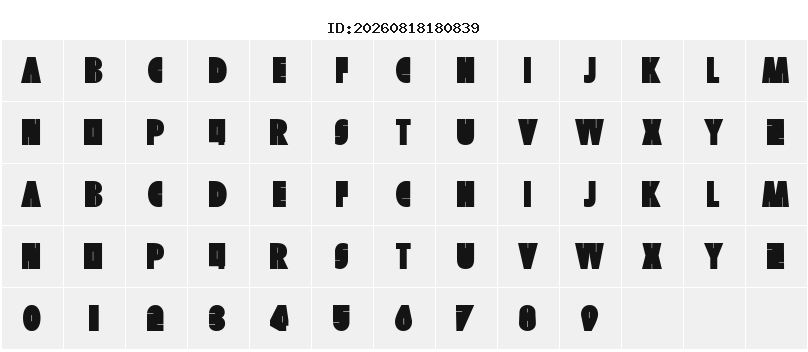
• Font Name: Skuer
• Designer: Valdet Hajdari
• Description: Skuer is a free typeface created in October 2012 and based on a "urban" style. The typeface contains all main characters (from A to Z - capitals & lowercases are the same ) and numbers (from 0 to 9). The following pictures show you how are the height and the width of the typeface and some examples on how it could be included on a logo, photo or anything else.
Skuer.ttf is a modern, elegant sans-serif font designed for ultimate readability and visual harmony. Perfect for branding, headlines, web design, and print materials.